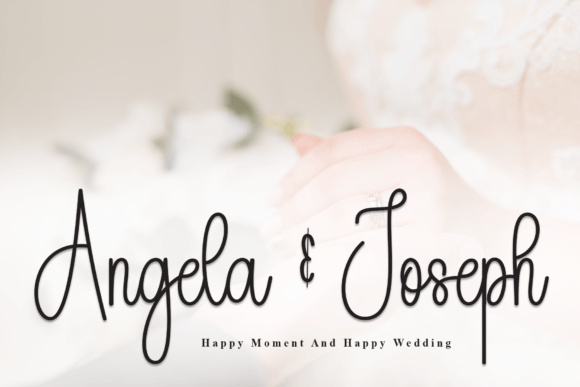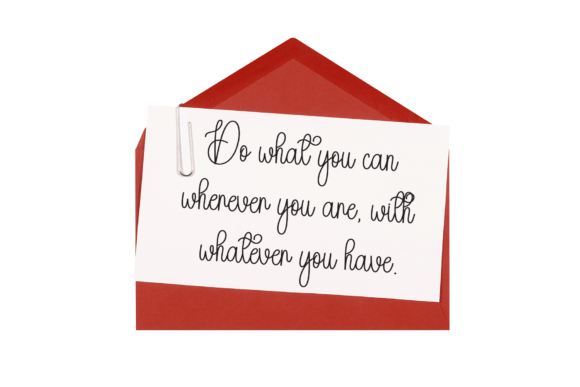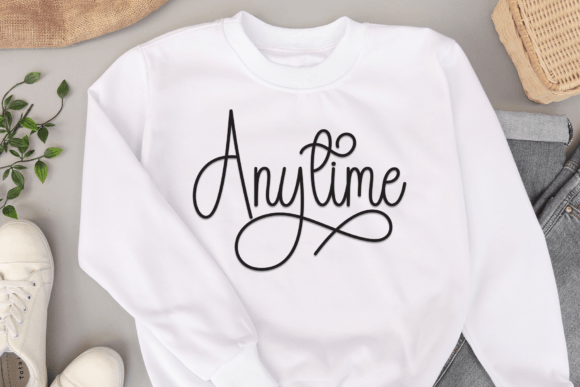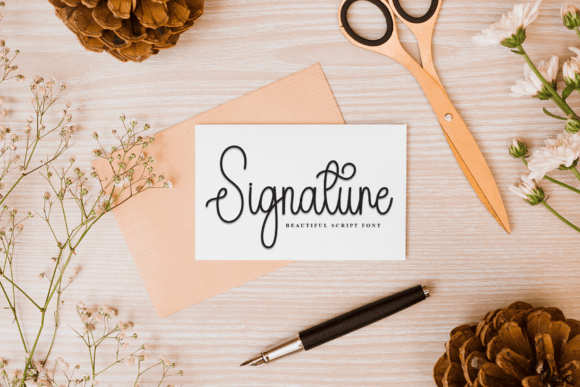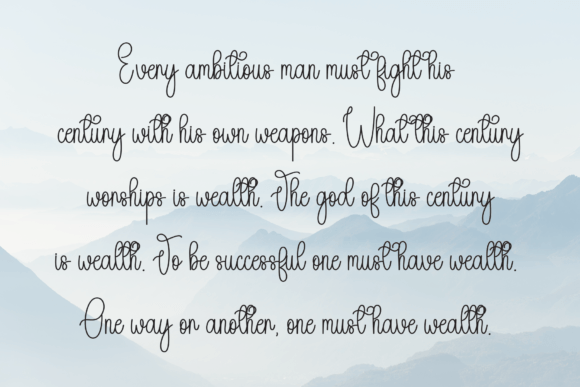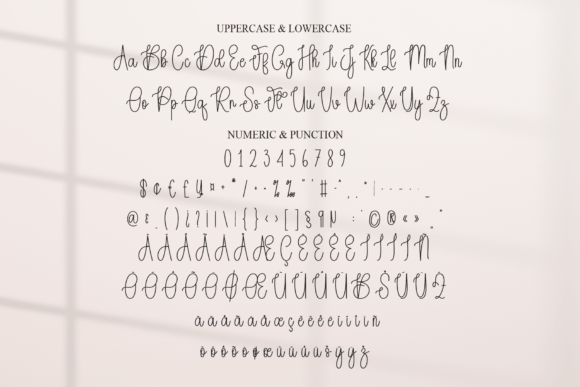
Unleash the Charm of Background Font
Remember the moment you stumbled upon that perfect font, and suddenly your design came to life? For many creatives, it’s a moment of pure joy and inspiration. Whether you’re designing an invitation, a logo, or a magazine spread, the right font can make all the difference. One such font that’s sure to captivate is Background, a modern and charming handwritten font that exudes elegance and personality.
With its graceful, flowing strokes and sophisticated character, Background Font is perfect for upscale projects that require a touch of refinement. From personal branding to editorial designs, this font adds a warm and inviting touch that’s sure to elevate your work. As a designer, you know how valuable it is to have a versatile font that can adapt to any project, and Background Font is definitely one to add to your arsenal.
Background Font Key Features
- Unique Characteristic: Background Font includes a unique ‘ghosting’ effect, allowing the font to subtly change color depending on the background.
Background Font Review
Practical Application Guide for Background Font
Tips for Getting the Most Out of Background Font